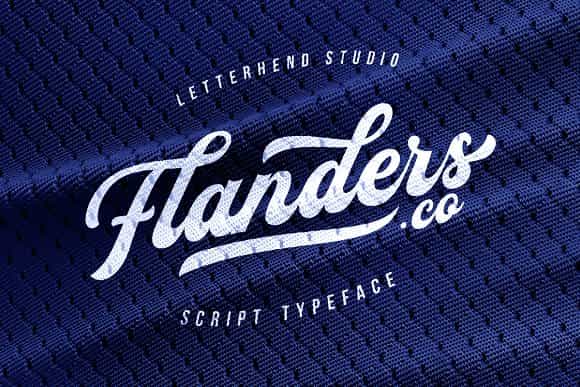
Introducing Flanders Font! It is a product by Letterhend and it was designed to be used with others. Flanders – A bold and modern script that can satisfy all your design needs for the sporty theme, logotype, quotes, word mark and so on. It has many opentype features like ligature,stylistic alternate,, contextual alternate ,swash etc support multi language .